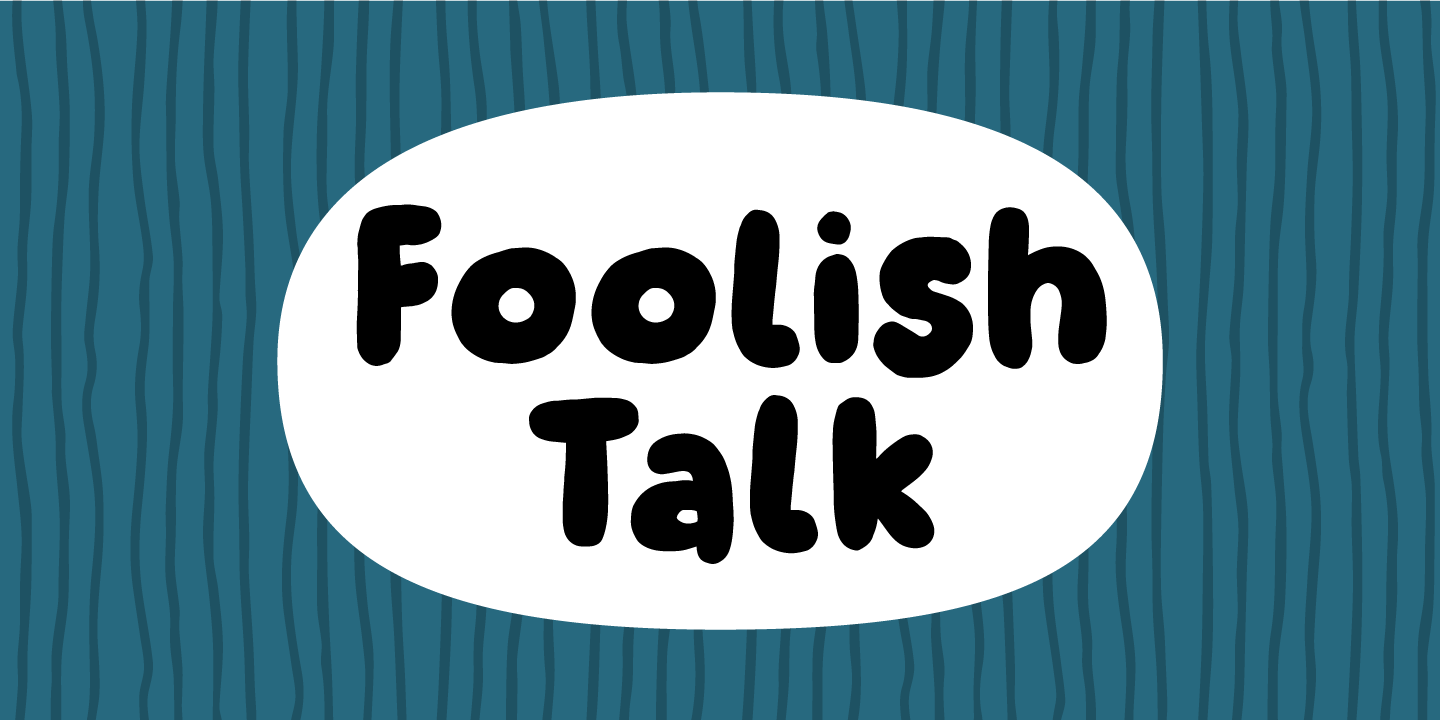
The Foolish Talk Font is perfect for children's book illustrations, playful logos, comic book dialogue, cartoon animations, fun party invitations, casual greeting cards, youth-oriented branding, comic strips, educational materials, and whimsical social media graphics.
What makes the Foolish Talk Font exciting is its delightfully quirky personality that brings instant joy and humor to any design project. This playful typeface features irregular letterforms with bouncy baselines and unexpected character variations that create a sense of spontaneous fun and childlike wonder. Each letter appears to dance on the page, capturing the essence of carefree expression and lighthearted communication.
The Foolish Talk Font family includes regular, bold, outlined, and shadow versions, along with decorative doodle elements and playful ornaments that enhance its whimsical appeal across various creative applications.
Whether you're designing for children's entertainment or adding personality to casual projects, Foolish Talk Font Free Download delivers maximum charm and character. Its intentionally imperfect letterforms ensure excellent readability while maintaining that essential playful spirit that makes viewers smile. The font's special features include contextual alternates, swash characters, and fun ligatures that automatically create variety and prevent repetitive appearance. Creative designers and illustrators consistently choose this font for projects requiring genuine warmth and approachability. The Foolish Talk Font transforms simple text into engaging, personality-filled communication, making it an invaluable addition to any designer's playful typography collection.